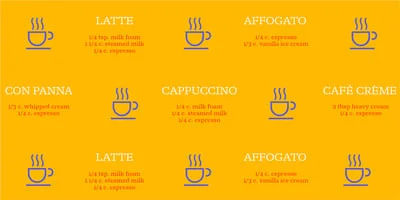
Molto Font
Molto Font is passionately designed for Italian restaurant branding, authentic pizzeria signage, Mediterranean culinary materials, wine cellar communications, artisanal food packaging, traditional trattoria menus, Italian cultural events, and gourmet dining campaigns. This flavorful typeface excels in environments requiring Italian authenticity and culinary passion, making it perfect for Italian restaurants, food importers, wine companies, and any business needing to communicate Italian heritage and culinary excellence through distinctive typography.
What makes Molto Font so exciting is its authentic capture of Italian cultural expression and culinary tradition that instantly evokes the warmth of Italian hospitality and the passionate artistry of Mediterranean cuisine. The font features expressively crafted letterforms with Italian flair and culinary-inspired proportions that reflect the vibrant energy of Italian conversation and the artistic presentation of traditional Italian cooking. Its passionate construction and cultural character make it incredibly effective for brands wanting to communicate authenticity, warmth, and Italian heritage while appealing to audiences who appreciate genuine Italian culture and culinary traditions.
Molto Font typically includes multiple weights and styles such as Light, Regular, Medium, and Bold, often accompanied by expressive Italic variations that enhance its Italian character. The font family frequently features additional character sets including Italian symbols, culinary icons, and Mediterranean glyphs that enhance its cultural appeal. Each weight maintains the font's distinctive passionate character while offering different levels of cultural emphasis, providing designers with comprehensive tools for creating authentic Italian brand identities and culinary-focused communication materials.
Culinary professionals will discover that Molto Font delivers outstanding performance in both traditional Italian applications and contemporary food marketing materials requiring cultural authenticity. The font's carefully crafted character set includes cuisine-appropriate letterforms, Italian symbols, and culinary elements essential for restaurant branding, food packaging, and Italian cultural communications. Its expressive design makes it particularly effective for Italian restaurants, wine importers, gourmet food brands, and culture-oriented marketing campaigns requiring authentic Italian presence.
The thoughtful attention to Italian proportions and expressive spacing ensures that Molto Font maintains excellent readability while delivering maximum cultural impact. Its passion-inspired design language makes it particularly effective for Italian cuisine, Mediterranean hospitality, wine culture, and culinary arts applications. The font's warm appearance creates strong cultural connections while remaining highly functional for projects requiring clear communication to food enthusiasts and Italian culture lovers.
For designers seeking a typeface that embodies Italian passion with culinary authenticity, Molto Font represents an exceptional choice that will flavor any project with its distinctive warmth and Italian character.